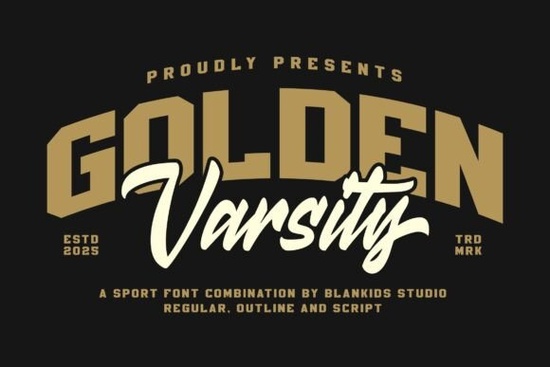
If you're working on a project that needs bold, nostalgic energy think team spirit, retro athletics, or vintage branding the Golden Varsity Font might be exactly what your design’s missing. This sporty typeface blends classic college lettering with clean modern usability, making it a solid pick for logos, apparel, posters, and packaging that want to channel that timeless varsity vibe without looking dated.
What sets Golden Varsity apart is its full character set: uppercase and lowercase letters, numerals, and punctuation all styled with that chunky, athletic flair you’d see on letterman jackets or stadium banners. Unlike some display fonts that only offer caps or limited glyphs, this one gives you flexibility while keeping a cohesive retro-sport aesthetic.
What kinds of projects work best with Golden Varsity?
This font shines when you need personality with professionalism. Here are a few real-world uses:
- Team or gym branding – Logos, social media graphics, or merchandise for local sports clubs, CrossFit boxes, or school teams.
- Print-on-demand products – T-shirts, mugs, or tote bags featuring motivational quotes or throwback slogans.
- Retail packaging – Snack brands, energy drinks, or lifestyle products aiming for a bold, energetic identity.
- Event posters – Fundraisers, tournaments, or community games where visual impact matters at a glance.
Because it includes both upper and lowercase letters, you’re not locked into all-caps designs. That opens up more typographic options like mixing case for emphasis or creating readable headlines that still feel dynamic.
How does it compare to other display fonts?
Not all sporty fonts offer the same balance of style and function. For example, if you’ve used something like Dino Roar, you know it leans into playful exaggeration great for kids’ themes but less suited for professional branding. Similarly, Whimsy Wiggle brings hand-drawn charm, which works beautifully for invitations or craft projects but lacks the structured confidence of a varsity aesthetic.
In contrast, Golden Varsity stays grounded in its genre. It doesn’t over-embellish; instead, it delivers clear, legible letterforms with just enough texture and weight to feel authentic. If you’re exploring similar styles, you might also like Emoren for its modern condensed energy or Vila Valent if you need elegant flair but neither captures that collegiate spirit quite like Golden Varsity.
Tips for using Golden Varsity effectively
Like any display font, restraint goes a long way. Here’s how to get the most out of it:
- Pair it wisely. Use a simple sans-serif (like Montserrat or Helvetica) for body text or supporting copy so the font remains the hero without competing.
- Avoid tiny sizes. Its detailed strokes and thick-thin contrasts work best at medium to large scales ideal for headlines, not footnotes.
- Play with color and texture. Try overlaying it on grainy backgrounds, distressed paper, or team-color palettes (navy/red, forest green/gold) to amplify the retro feel.
- Use real words, not just initials. Because it includes full lowercase support, you can write full sentences not just “GO TEAM” and still keep that varsity punch.
One common mistake? Overusing effects like heavy drop shadows or outlines. Golden Varsity already has strong presence sometimes a clean white-on-navy treatment says more than a rainbow gradient ever could.
Who should consider this font?
Even hobbyists building personal projects like a family reunion shirt or a garage gym logo can add professional polish without needing advanced design skills. The style does much of the storytelling for you.
Before you finalize your choice, ask: Does my project need to feel energetic, trustworthy, and rooted in tradition? If yes, Golden Varsity delivers that combo without gimmicks.